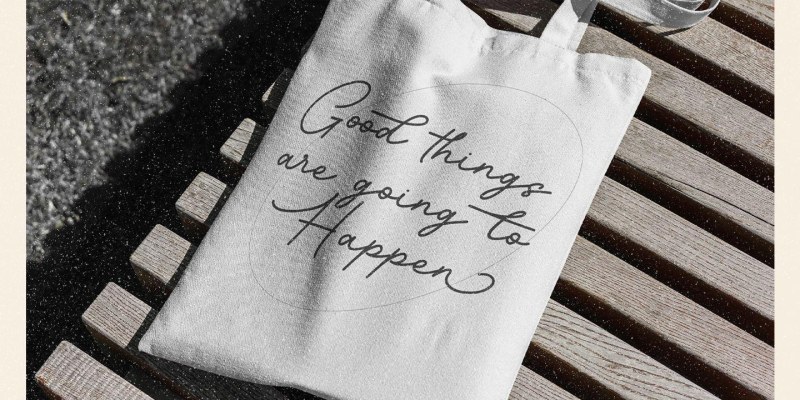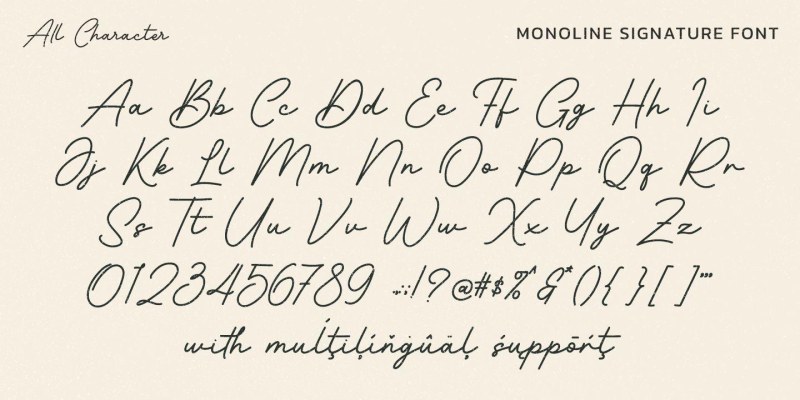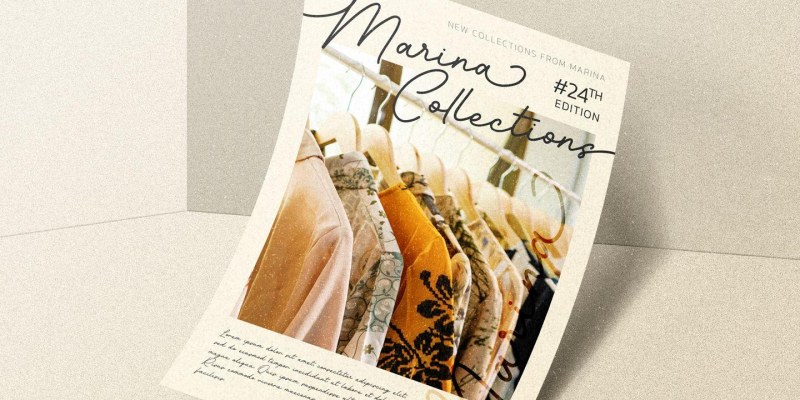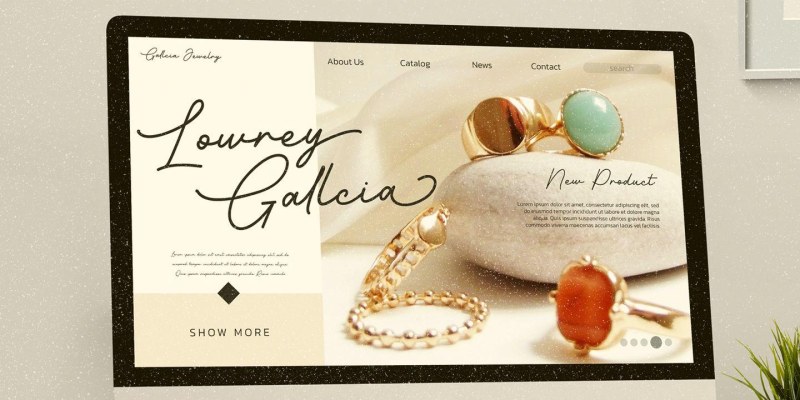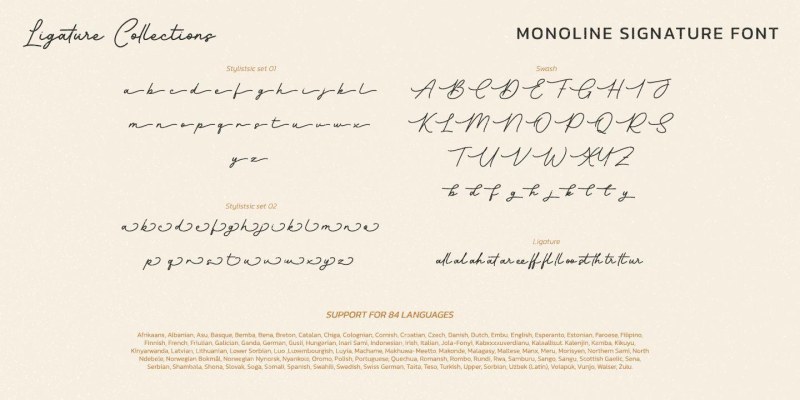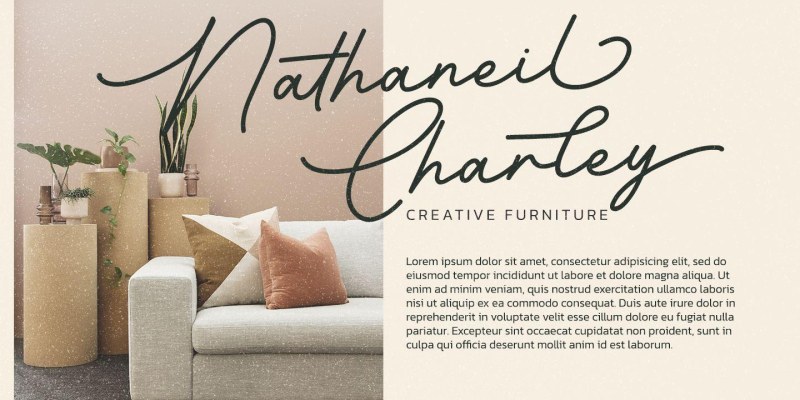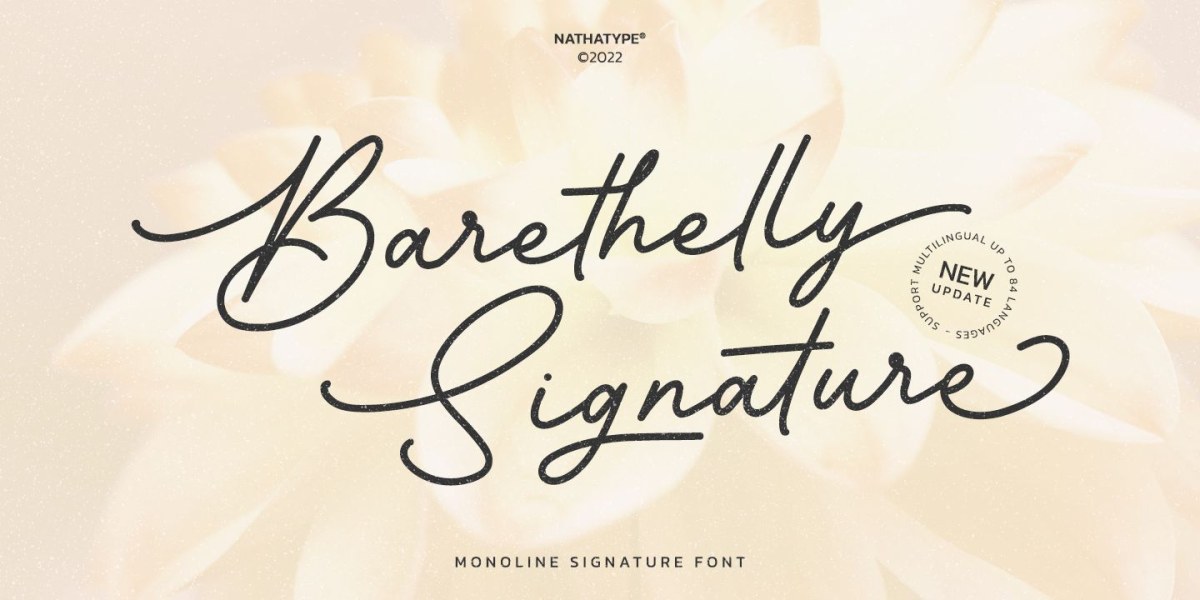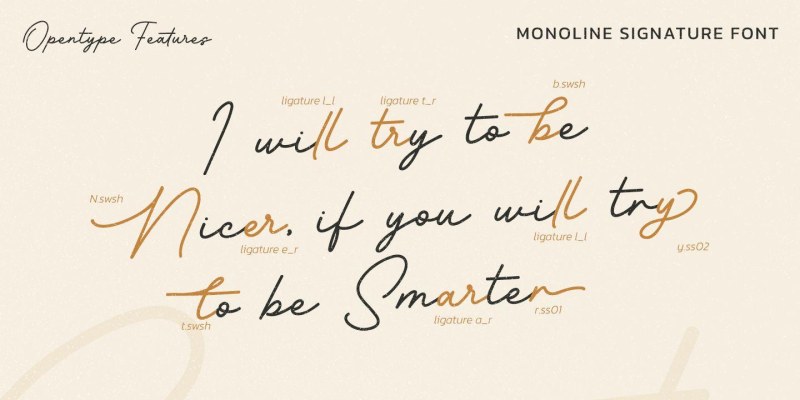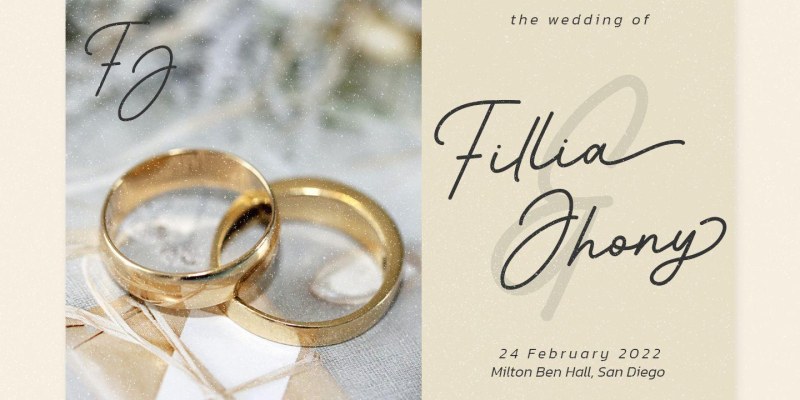
Barethelly Signature Font
Barethellly signature is a font designed with actual handwriting. This font generates clean, elegant and trustworthy appearance. As our commitment to support your brand…
Barethellly signature is a font designed with actual handwriting. This font generates clean, elegant and trustworthy appearance. As our commitment to support your brand globally recognized, we always come with multilingual options. It is can used for branding, logos, social media quotes, invitations, stickers, posters, vintage designs, wall art, merchandise, social media, and many more.
Where Barethelly Signature Font works best
Barethelly Signature Font brings a personal, handwritten warmth to invitations, menus and place cards.
Craft brands — coffee, cosmetics, bakery — use scripts like Barethelly Signature Font for signature-style logos and labels.
Pair Barethelly Signature Font with a plain sans for quotes, stories and Pinterest pins that feel handmade.
What is Barethelly Signature Font good for?
Barethelly Signature Font is a Script And Handwritten typeface tagged Branding, Clean, Elegant, Handwritten. It works well for headlines, logos, posters, social media graphics and branding projects that need a distinctive script and handwritten look.